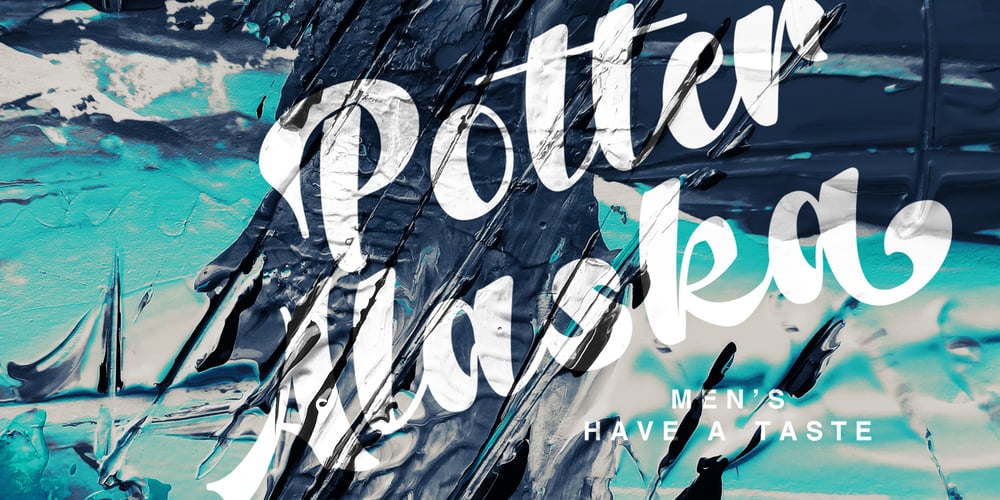
Potter Alaska
Potter Alaska font
Potter Alaska Font Family was designed by Alde Saputro and published by Aldedesign. Potter Alaska contains 2 styles and family package options. Potter Alaska is Nice Bold Script Font – A stylish and quirky new bold script. Potter Alaska font was created to look as close to a readable bold script as possible by including a couple ligatures.